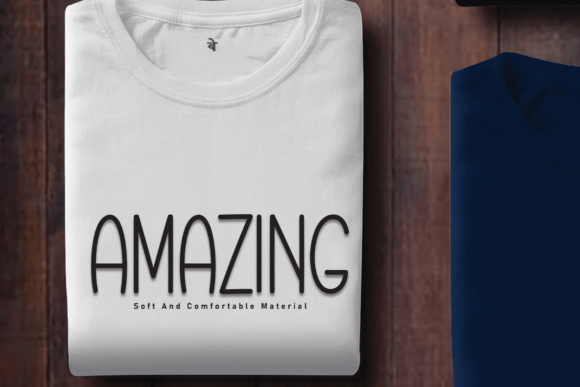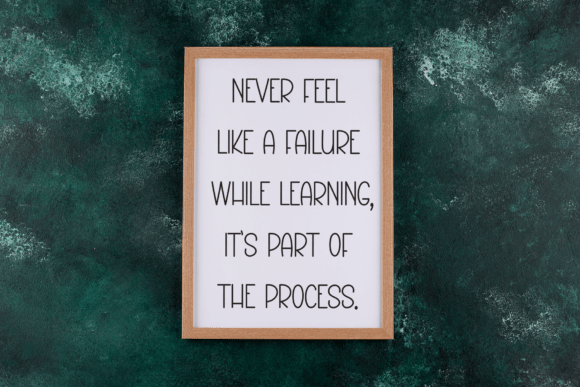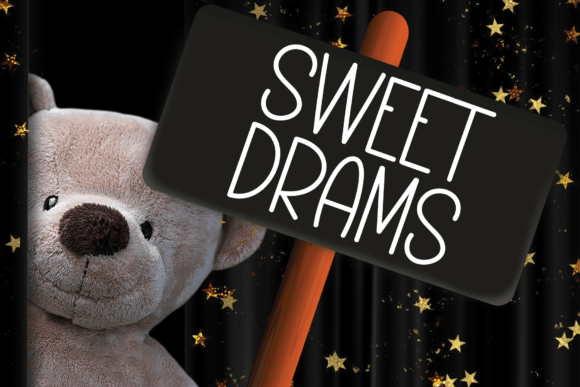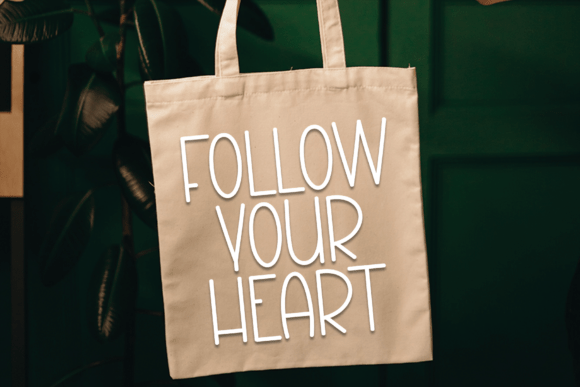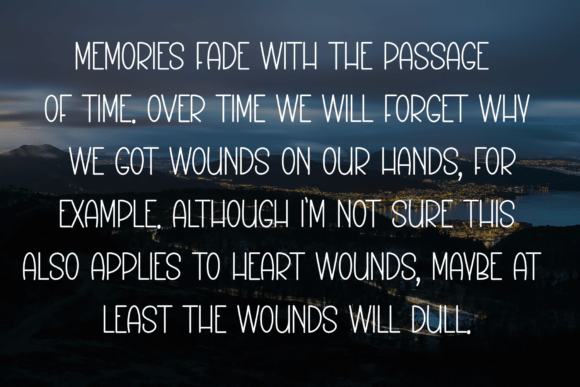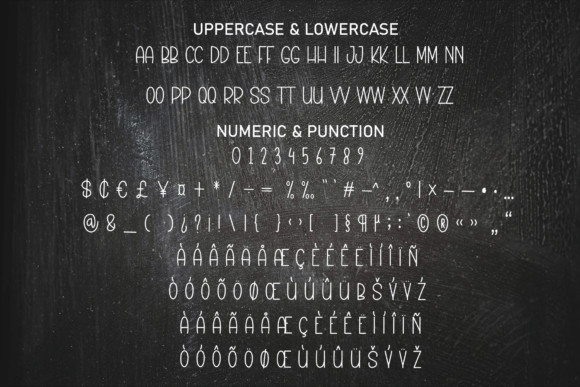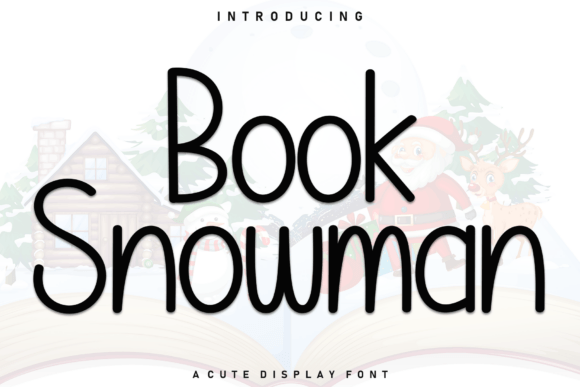
Unleashing the Whimsy of the Classroom: Blackboard Font
Who hasn’t scribbled their name on a chalkboard, doodled a quick cartoon, or hastily scrawled a math problem in a hasty attempt to complete a homework assignment? The nostalgia of those carefree days of youth is what makes the Blackboard Font so endearing. This charming, handmade font captures the essence of those makeshift classroom creations, transporting us back to a bygone era of chalk dust and laughter.
With its playful curves and quirky style, the Blackboard Font is perfect for designers looking to infuse their projects with a sense of whimsy and fun. Whether you’re creating school-themed designs, kids’ crafts, or educational posters, this font is sure to bring a smile to your face and a touch of nostalgia to your work.
Blackboard Font Key Features
- Font Family: Blackboard Bold, Blackboard Italic, and Blackboard Regular
- Unique Characteristics: Distinctive, hand-drawn appearance with a bold and playful feel
Blackboard Font Review
At first glance, the Blackboard Font seems to be a great choice for educational or nostalgic projects. ✨ Its unique, handwritten style is reminiscent of classic chalkboard writing, which can be quite appealing to the right audience.
- Distinctive aesthetic: The Blackboard Font has a clear, bold, and expressive style that can add character to any design.
- High legibility: Despite its handwritten nature, the font is surprisingly easy to read, making it suitable for body text or even headings.
- Good for creative projects: The Blackboard Font can be a great fit for designs that require a touch of whimsy or vintage charm.
However, there are some limitations to consider. ⚠️ The font may not be the best choice for formal or professional projects, as its informal style can come across as unpolished or immature. Additionally, the font may not be as versatile as some other options, with limited font sizes and weights available.
Overall, I would recommend the Blackboard Font for designers looking to add a unique touch to their projects. While it may not be suitable for every design, it can be a great choice for the right project – just be sure to consider the context and intended audience.
Tips for Getting the Most Out of Blackboard Font
Here are some tips for using the Blackboard font effectively:
- Use it sparingly to add a touch of elegance and sophistication to your designs.
- Pair it with other fonts to create a unique and eye-catching combination.
Here are some common use cases for the Blackboard font:
- Wedding
Comparison: Alex Brush is more ornate and decorative compared to Blackboard Font, making it a better choice for materials that require a high level of sophistication.